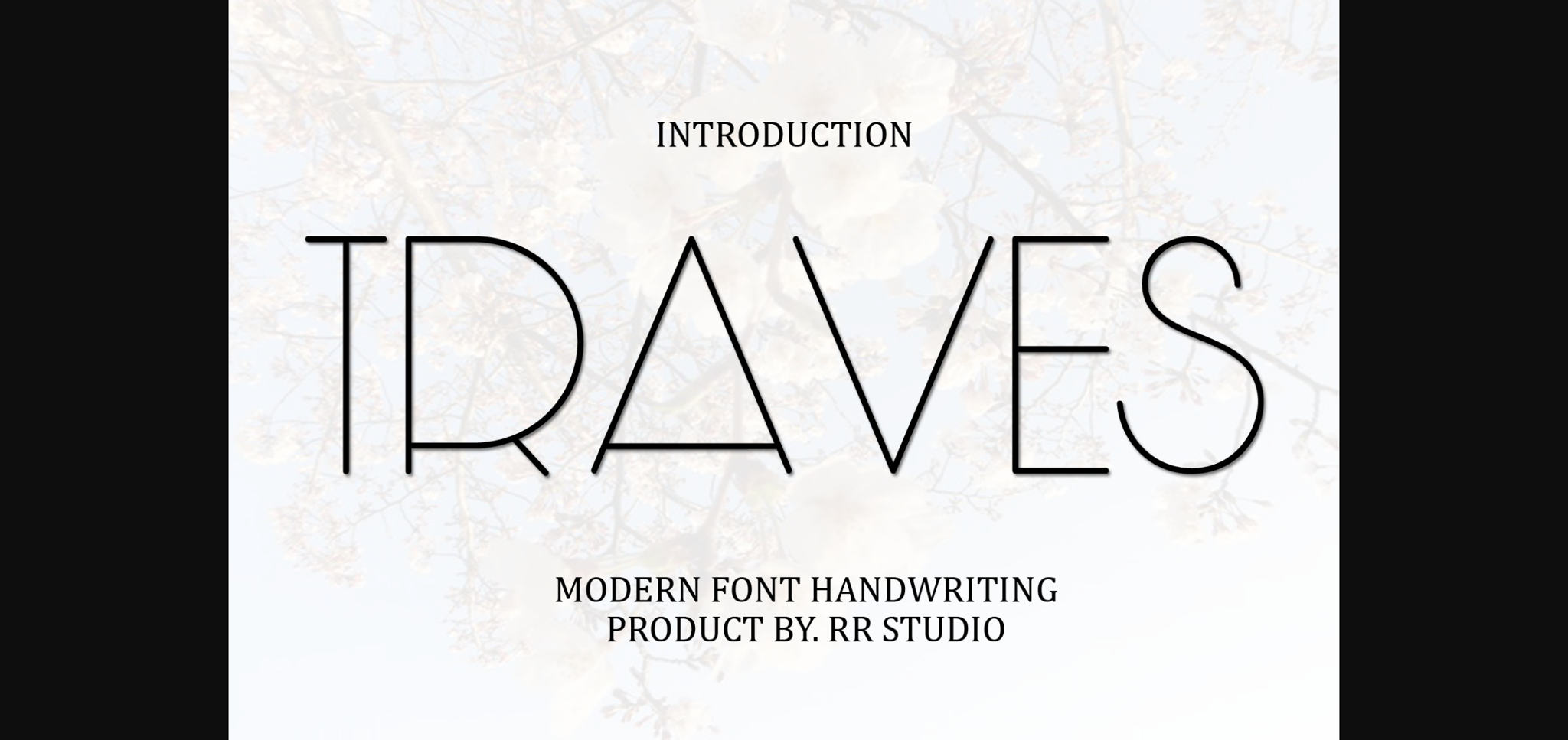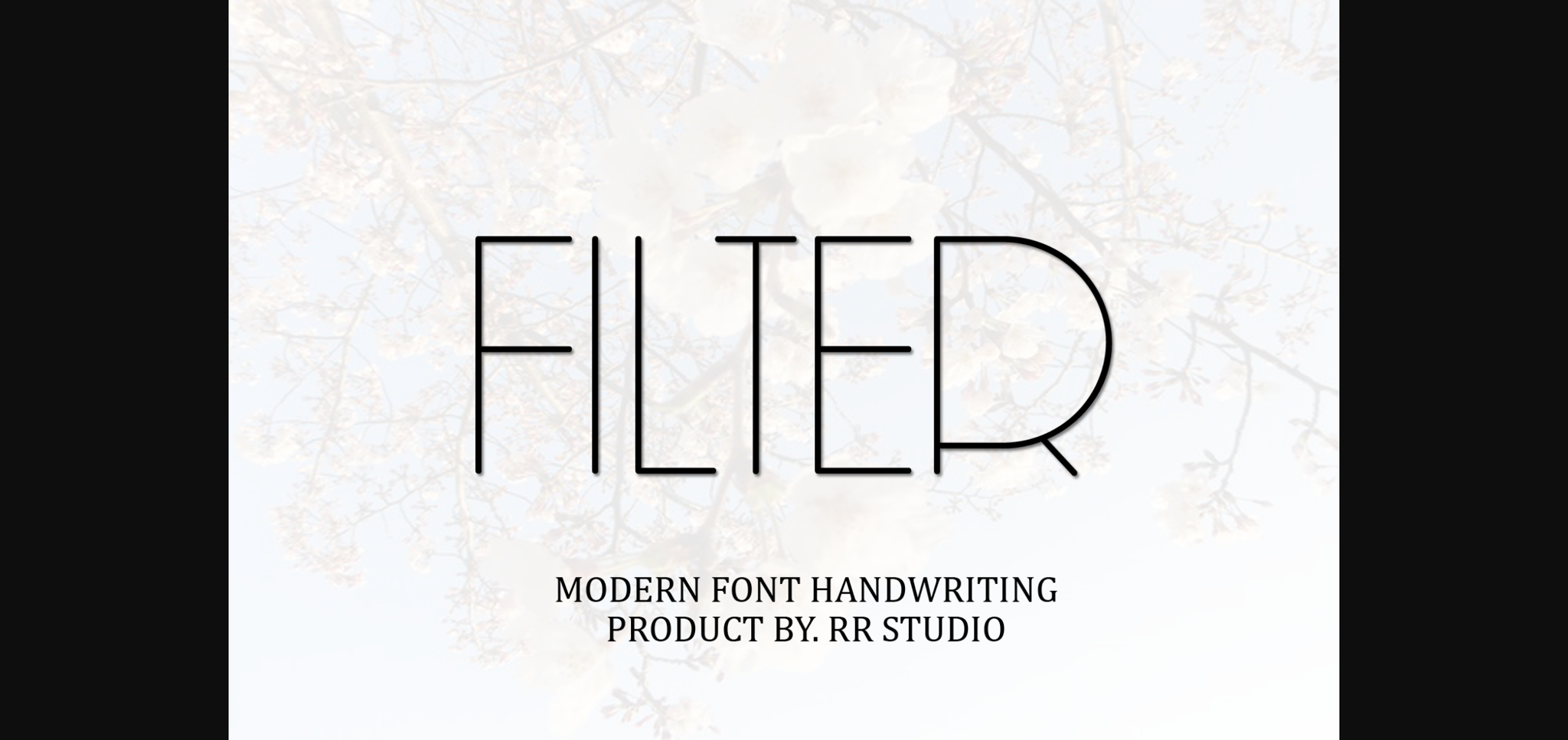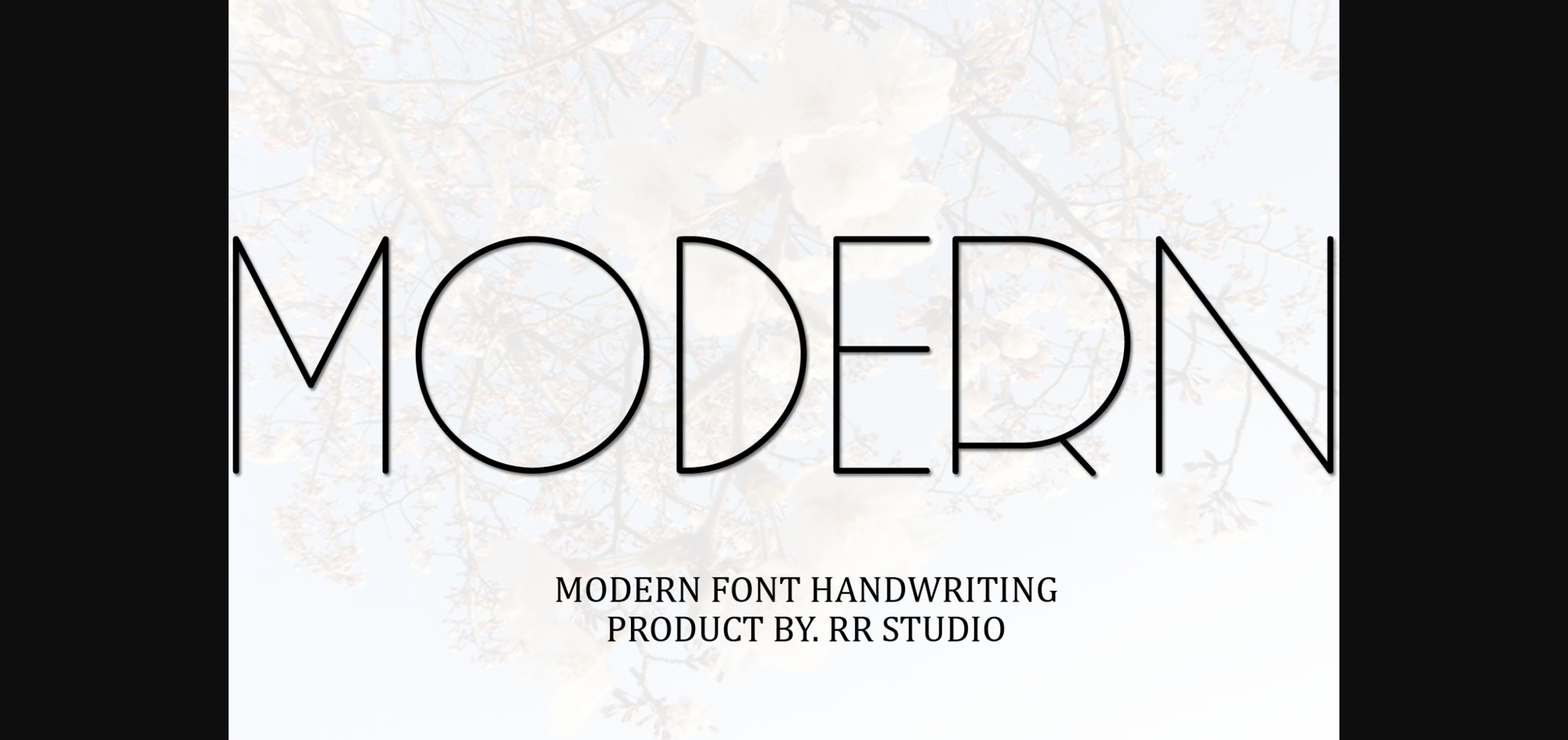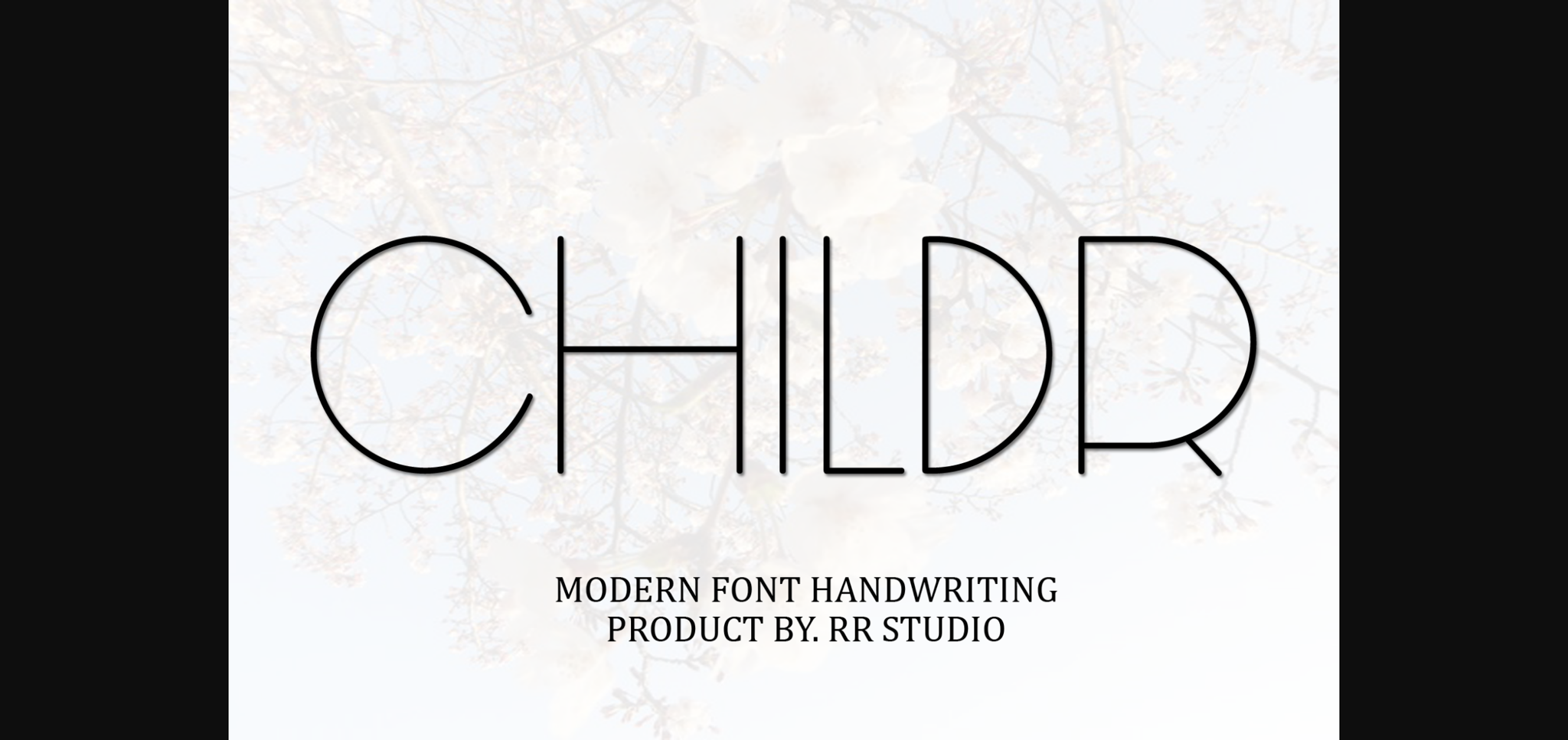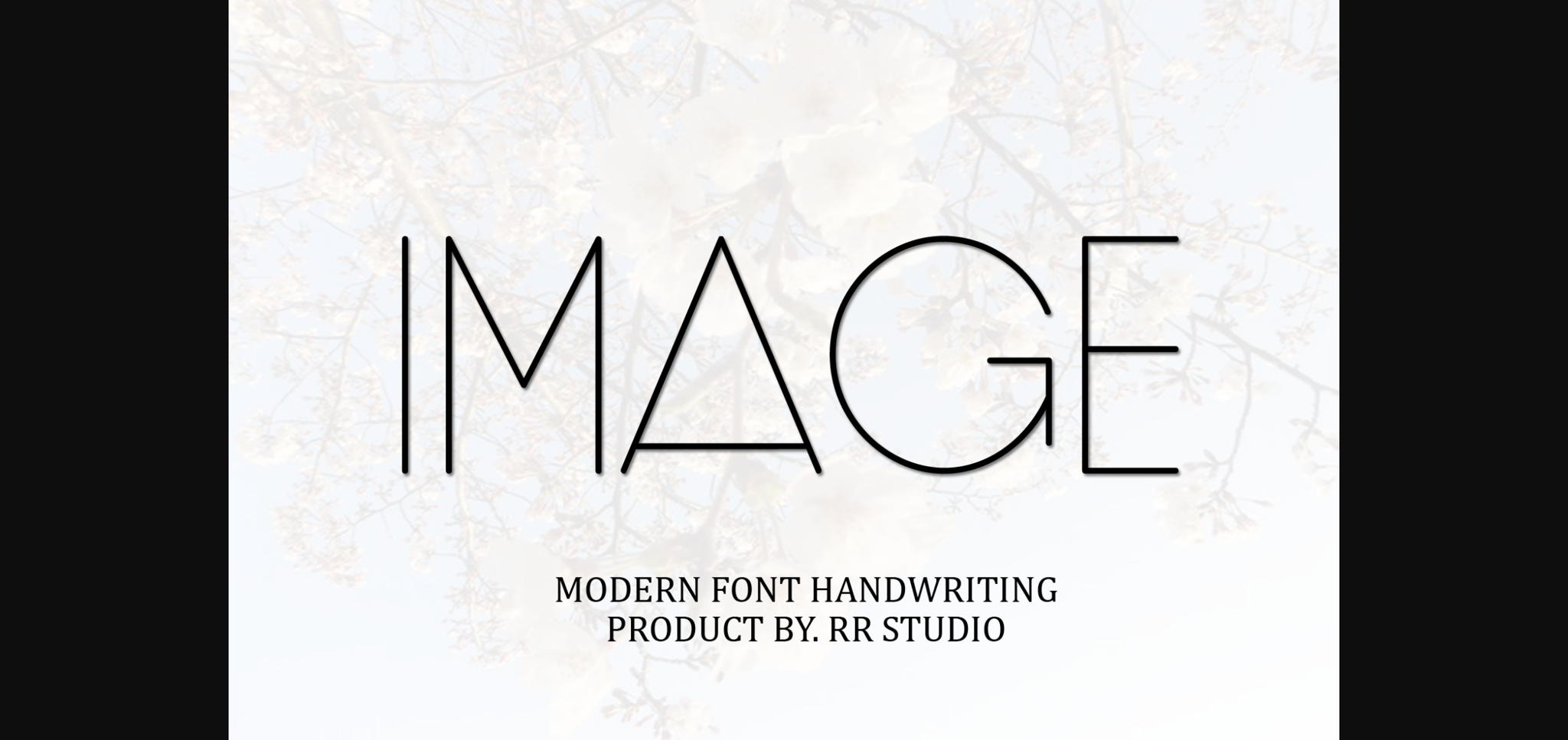
HomeSans Serif FontsTraves Font Sans Serif Fonts Traves Font FacebookXPinterestWhatsApp 1 of 8 ... Traves Font Poster 2... Traves Font Poster 3... Traves Font Poster 4... Traves Font Poster 5... Traves Font Poster 6... Traves Font Poster 7... Traves Font Poster 8... About Traves Font Traves is a stylish and incredibly elegant sans serif font. It looks stunning on wedding invitations, thank you cards, quotes, greeting cards, logos, business cards and every other design which needs a handwritten touch. DOWNLOAD NOW People also explored Walahard Font Serendipity Font Sidereal Font Good Feeling Font Hola Hue Font Talking Font Leghis Font Justine Font Little Thomas Font 349 0 TagsTravesTraves Font Previous articleMother Modern FontNext articleMarsin Font LEAVE A REPLY Cancel reply Comment: Please enter your comment! Name:* Please enter your name here Email:* You have entered an incorrect email address! Please enter your email address here Website: Save my name, email, and website in this browser for the next time I comment. Personal Use Free Shawaki Personal Use Free Read more about this font Concrete Wall Personal Use Free Read more about this font Moon Light Personal Use Free Read more about this font Vanity Personal Use Free Read more about this font BLOG Using Fonts in Digital Marketing: Tips to Strengthen Your Brand Identity In the realm of digital marketing, every visual element plays a crucial role in shaping a brand's identity, and fonts are no exception. The... The 10 Best Handwriting Fonts to Add Personality to Your Designs Where to Buy American Fonts Online in 2024 Free vs Paid Fonts: Why Investing in Premium Fonts Is Worth It